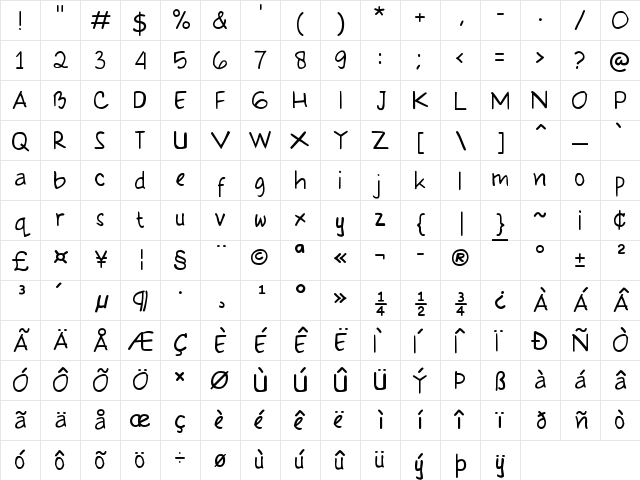
Klepon Scone Regular
Foundry: Microsoft Corporation
Designer: Vincent Connare
Complete Klepon Scone Regular glyph index. Displaying only characters natively supported by Klepon Scone Regular font.
Design Context for Klepon Scone
Klepon Scone is a composed and adaptable typeface that performs quietly and consistently across a wide range of design contexts.